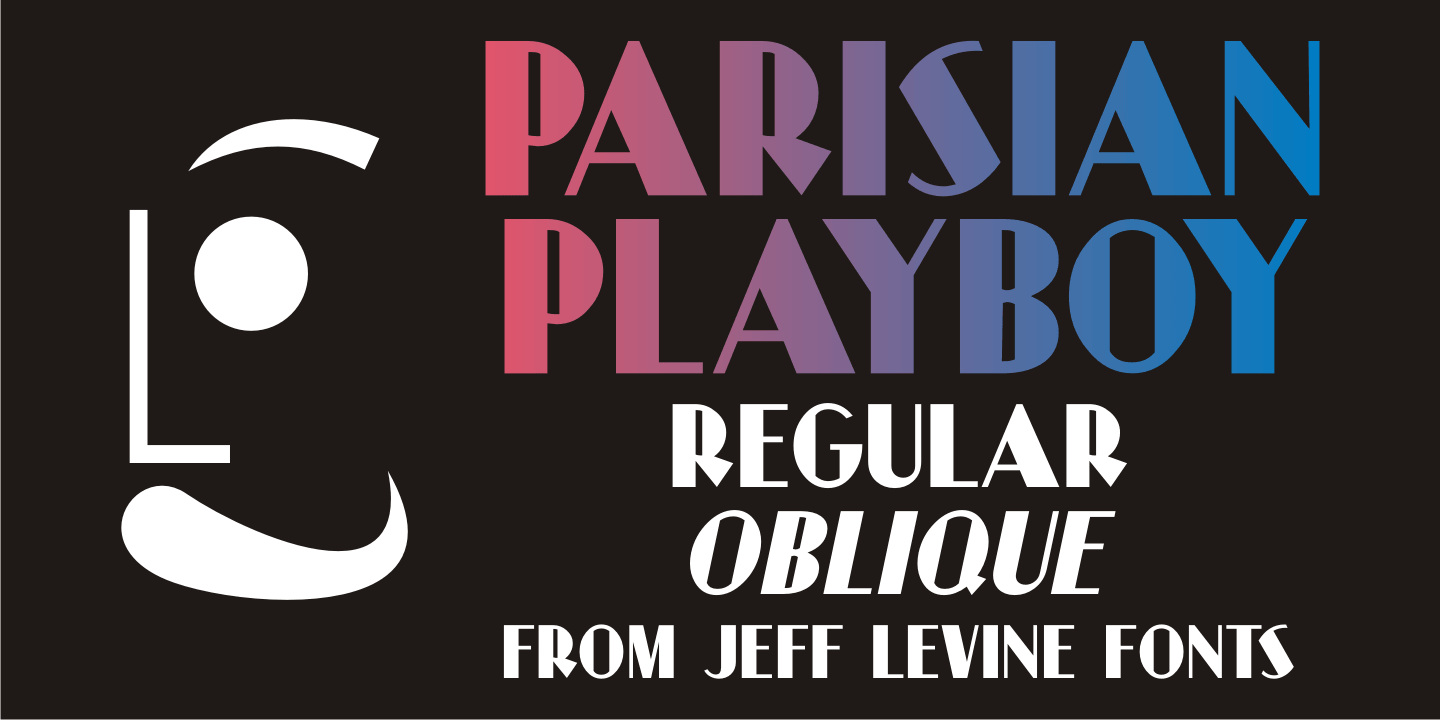
Designed by Jeff Levine, Parisian Playboy JNL is a art deco font family. This typeface has two styles and was published by Jeff Levine Fonts.
Sheet music for the song “My Ideal” (from the 1930 Paramount picture “Playboy of Paris starring Maurice Chevalier) had the name of the movie hand lettered in an Art Deco, Broadway-influenced type design.
This became the inspiration for Parisian Playboy JNL, which is available in both regular and oblique versions.